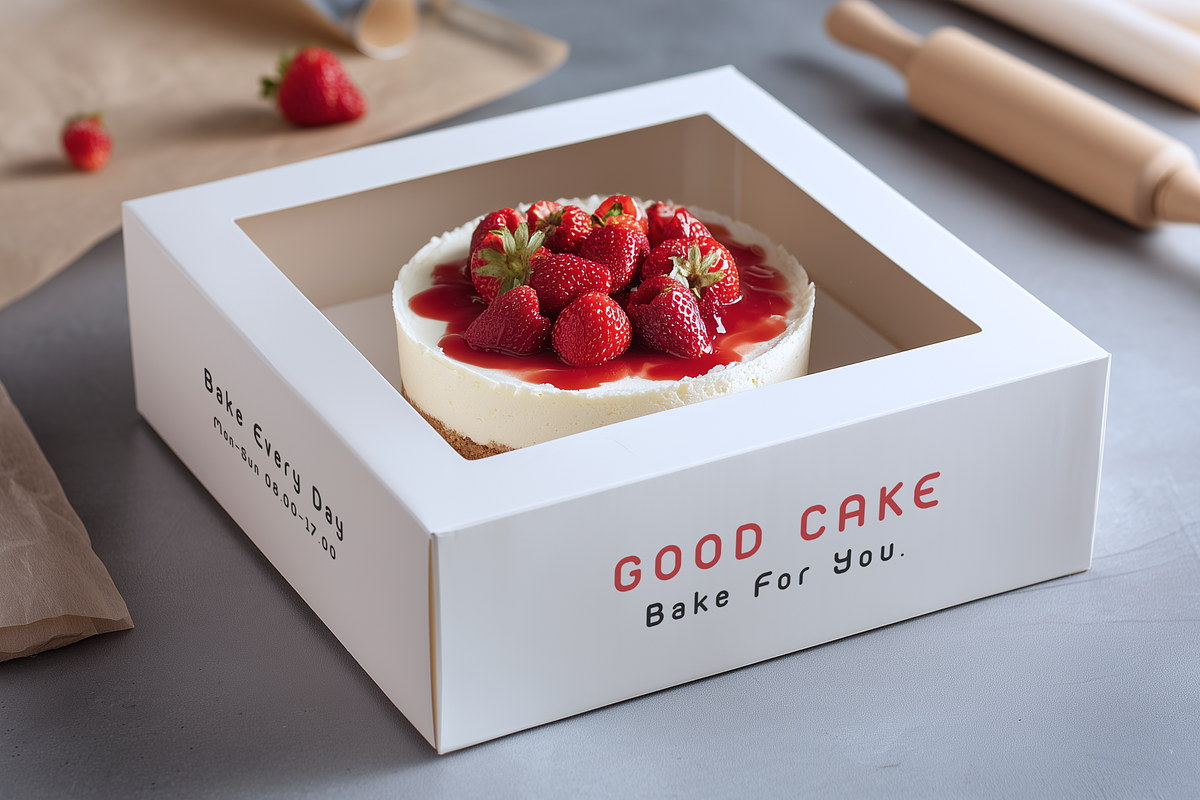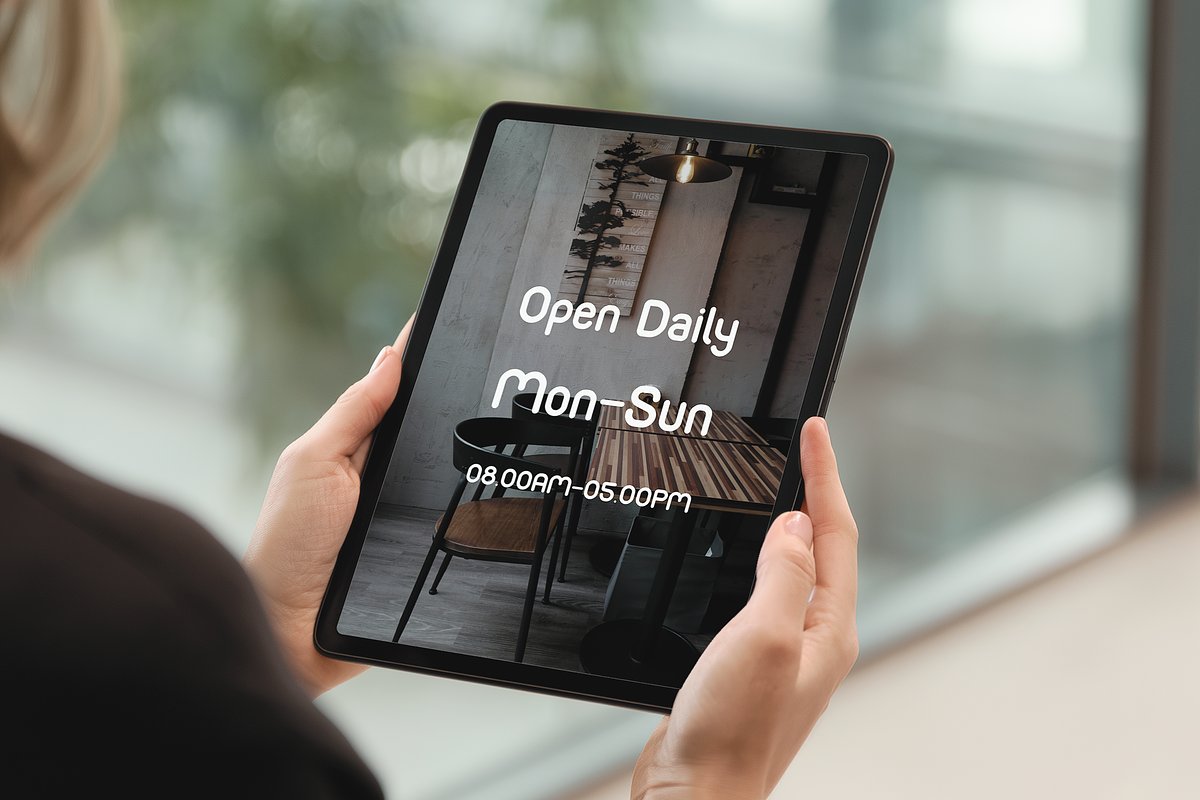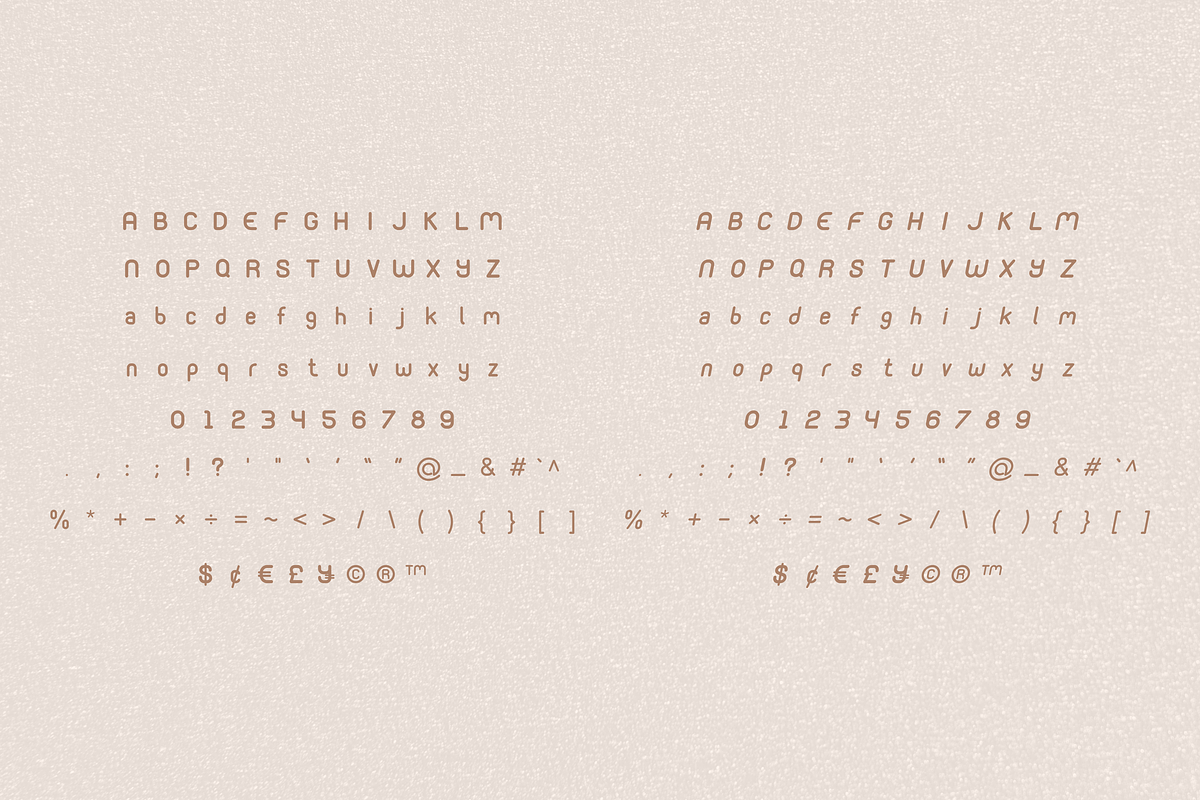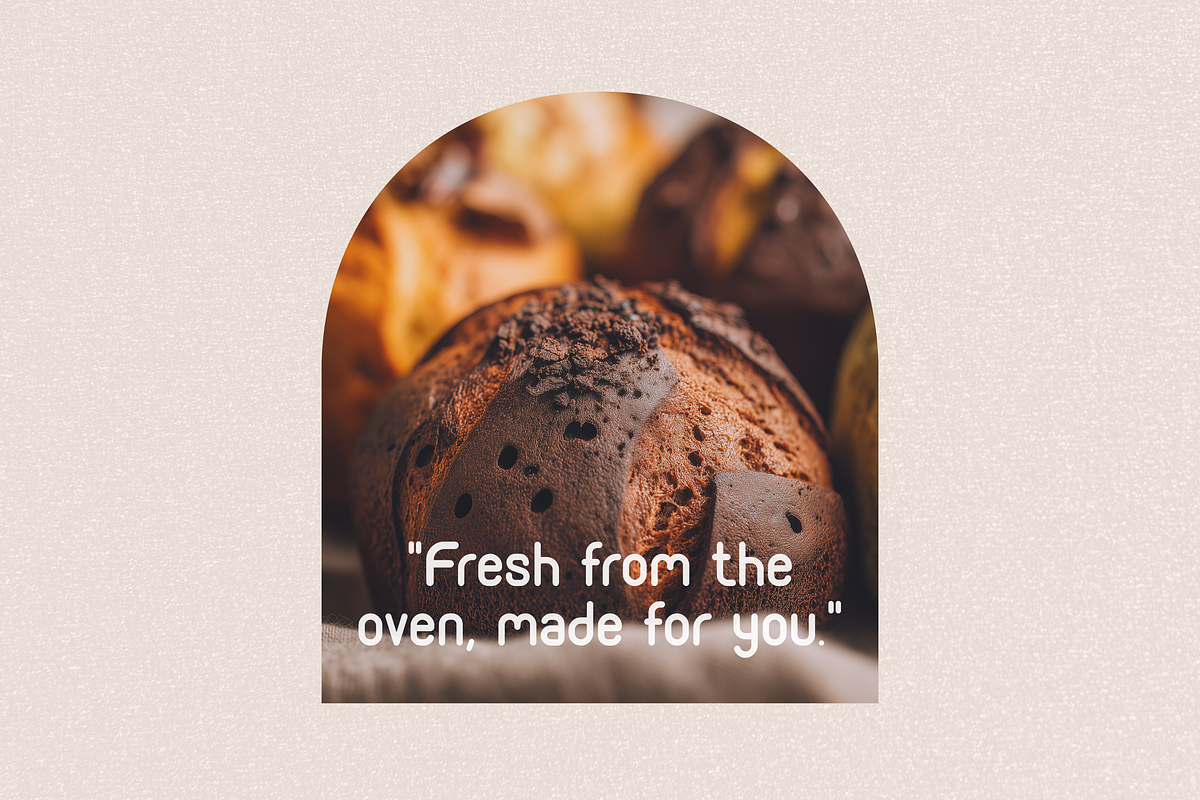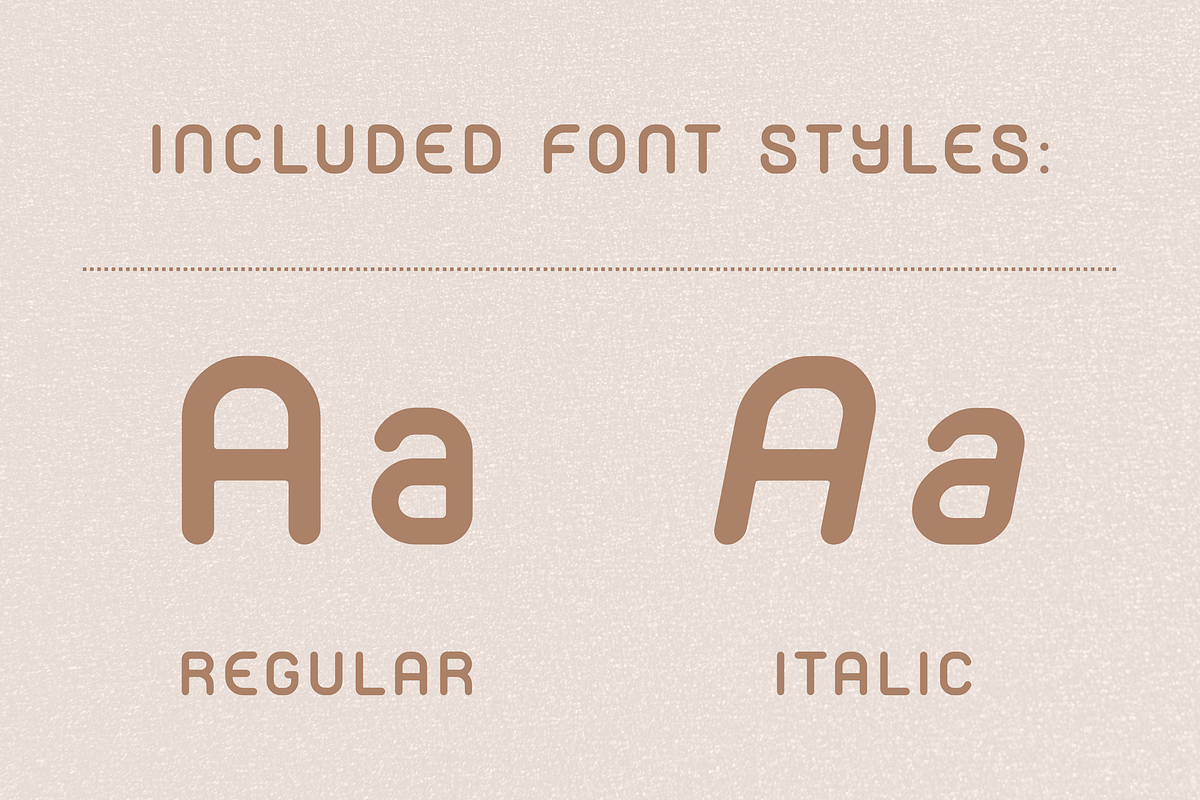
Monoround - Rounded san serif font
Take your design projects to the next level with Monoround, a smooth and stylish rounded sans serif font available in both Regular and Italic styles.
Designed for clarity and modern appeal, Monoround is ideal for branding, UI/UX, logos, websites, social posts, and packaging. This font comes in 4 flexible formats to ensure compatibility across print and digital platforms.